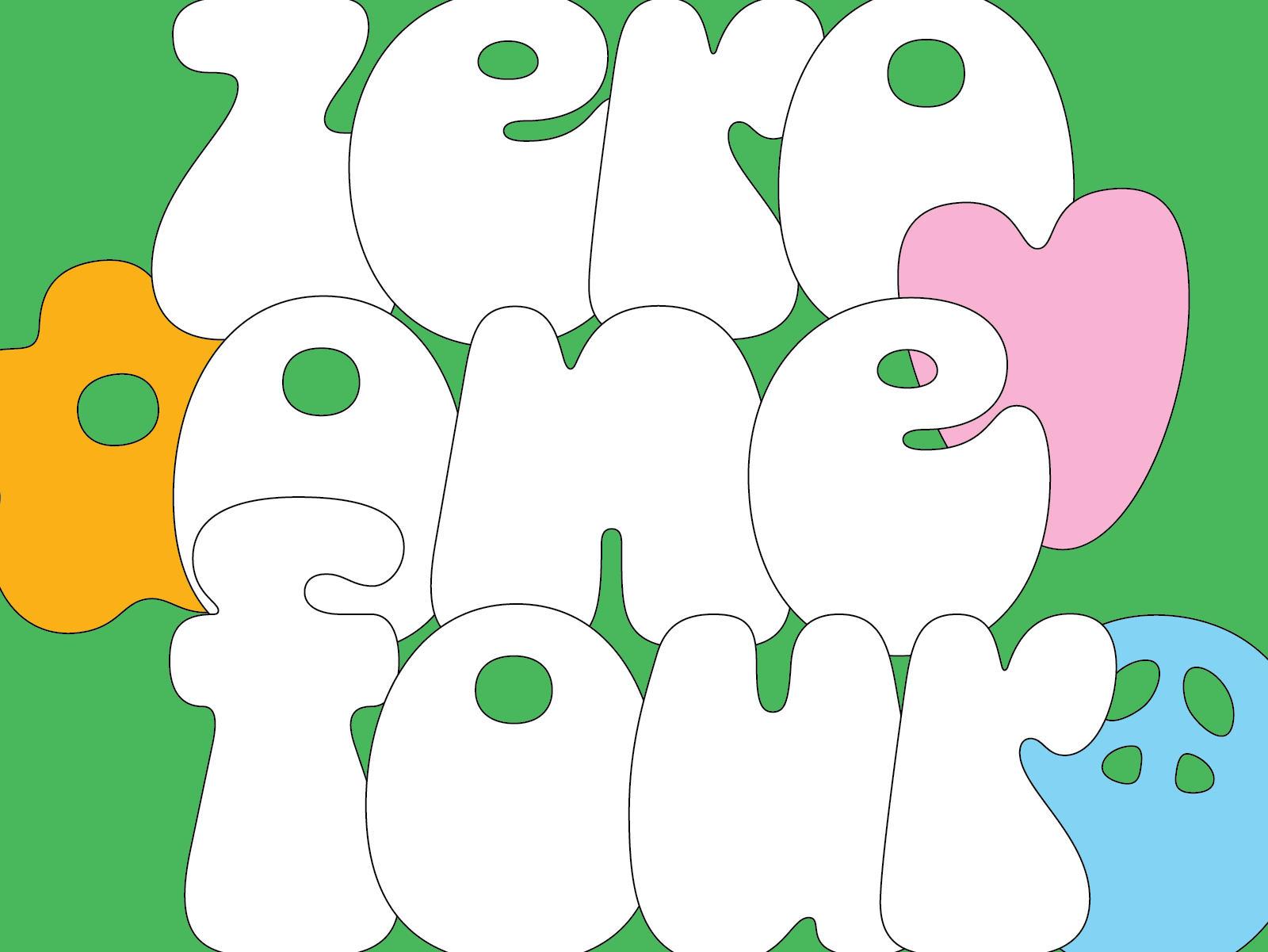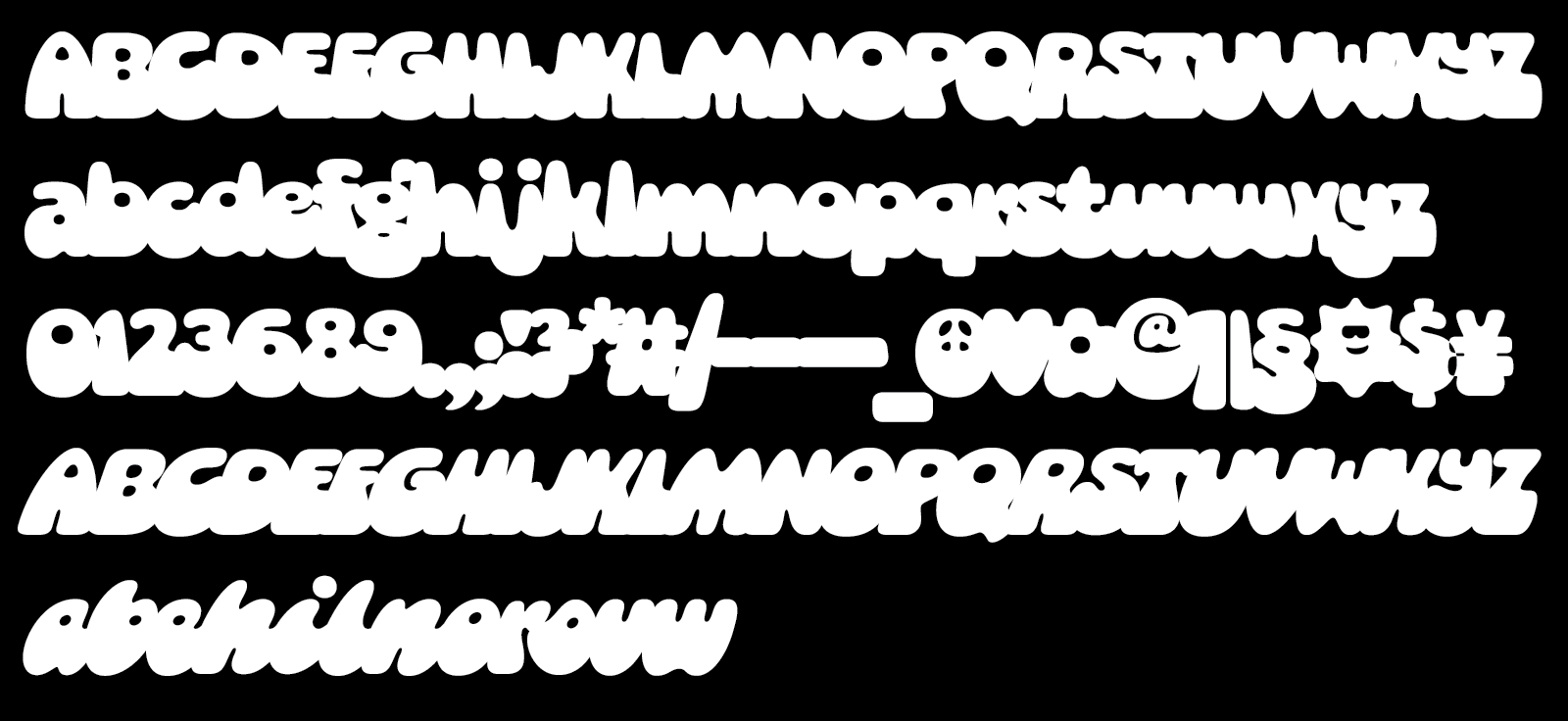
New Type Electives classes + Socko <3
Lastly, I have a lil Socko update for ya! I am working on the italic now and it’s so retro! The lowercase is feeling more like a connected script than I intended but I really wanted to utilize italic forms (single story a, exit strokes, etc) instead of just leaning the regular letters.
I’m about halfway through the lowercase right now and it is admittedly very challenging. The exit strokes need to look good and connect to any letters after them but then also still read well when they are at the end of a word. Some letters also feel like they lean more than others. All very classic italic problems!!
The caps are mostly slanted versions of the regular style. They’re still a bit rough and I am going to go through and round out some of the straighter spots as the italic lowercase doesn’t have a lot of straight lines.
I am loving the process tho! Finally finishing a font feels like an amazing feat after spending a whole year in the concepting phase! Anyways, Socko’s release date will be announced very soon. <3